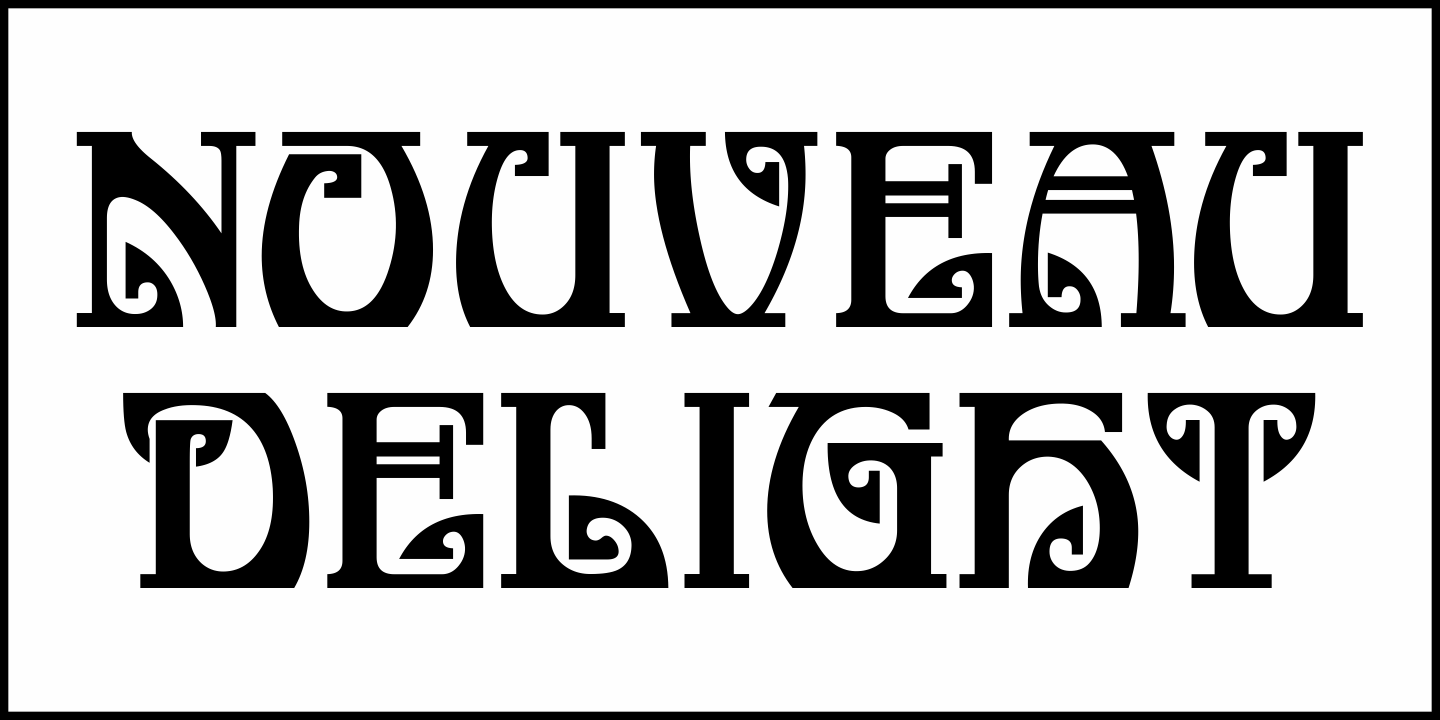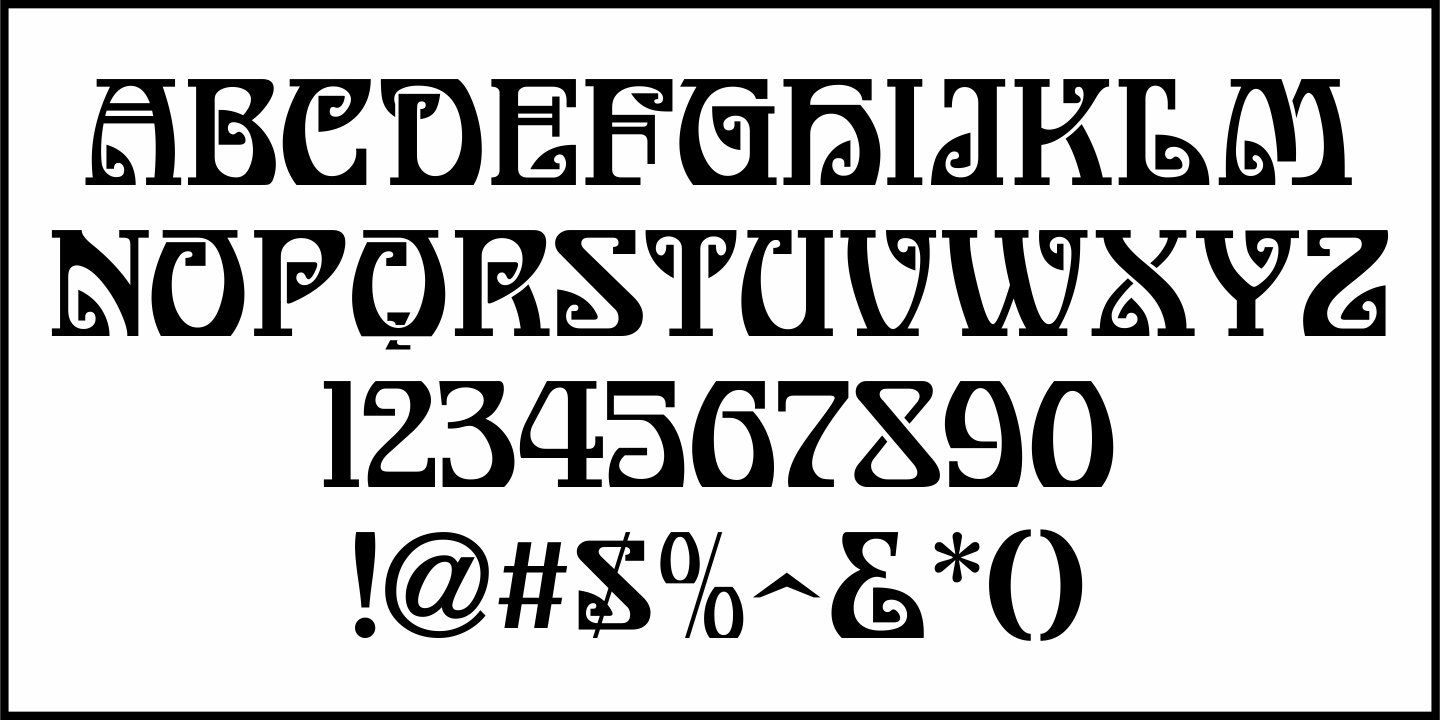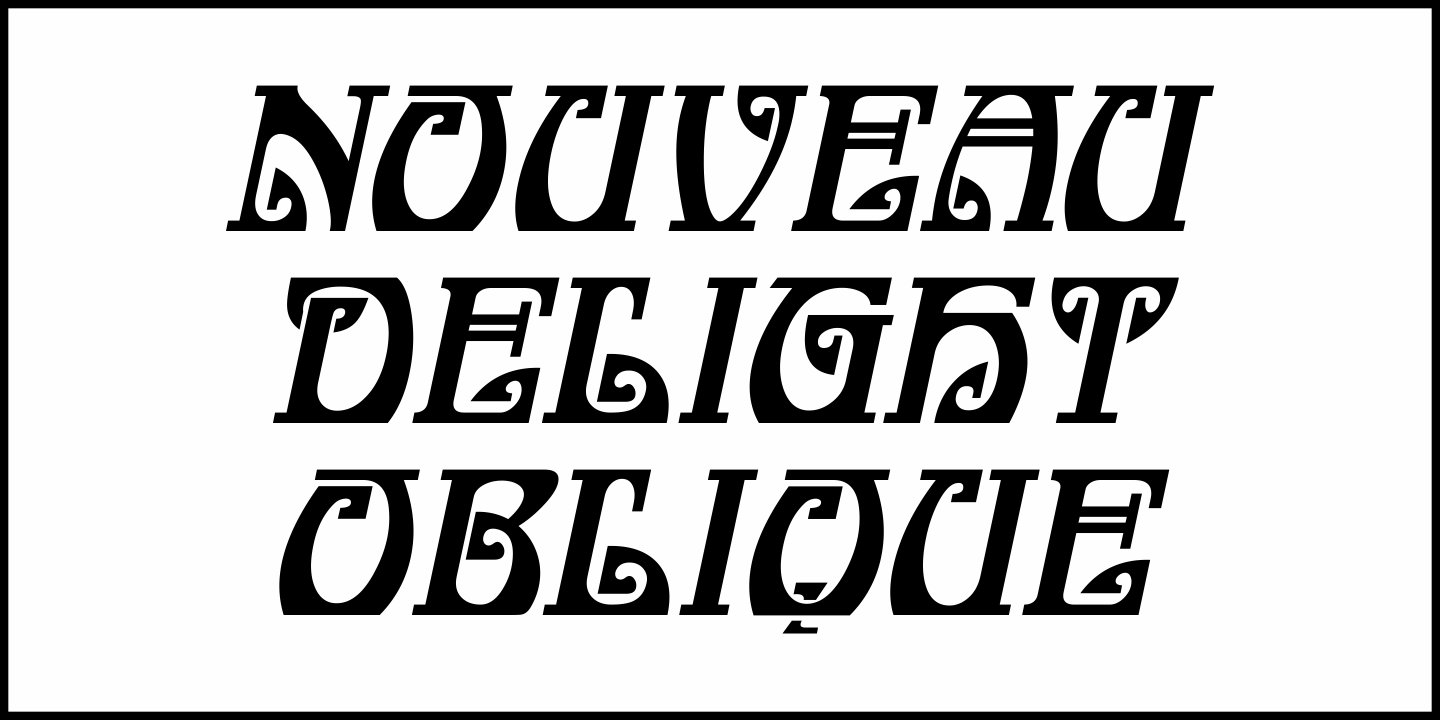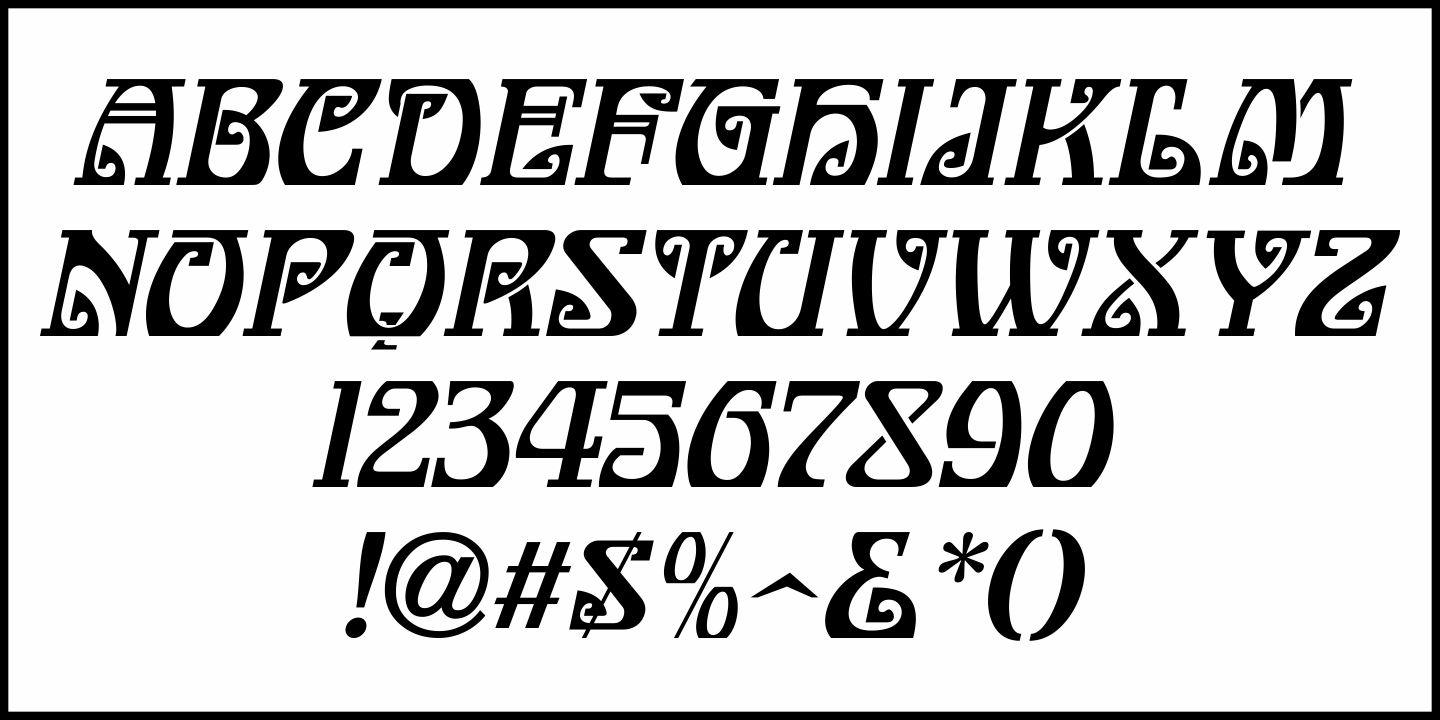
Nouveau Delight
An Art Nouveau alphabet presented in the 1923 publication "Art Alphabets & Lettering" by J.M. Bergling served as the model for Nouveau Delight JNL, which is available in both regular and oblique versions.